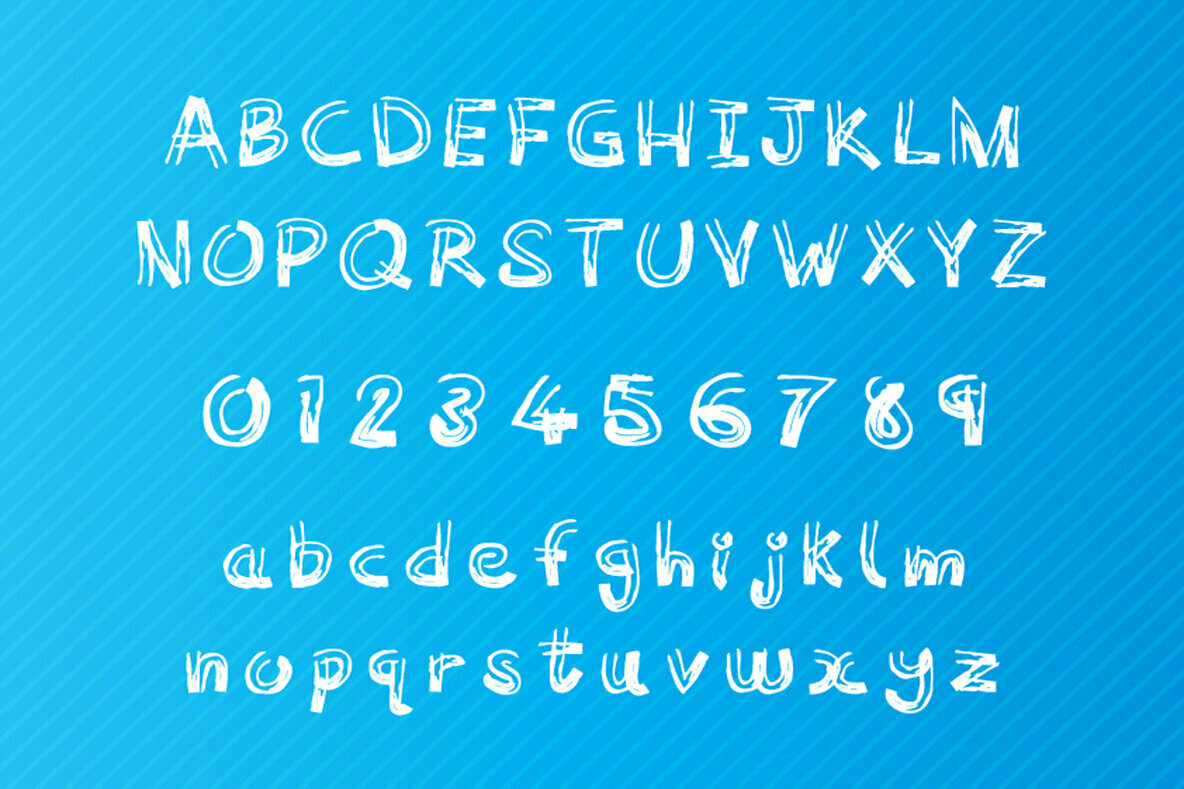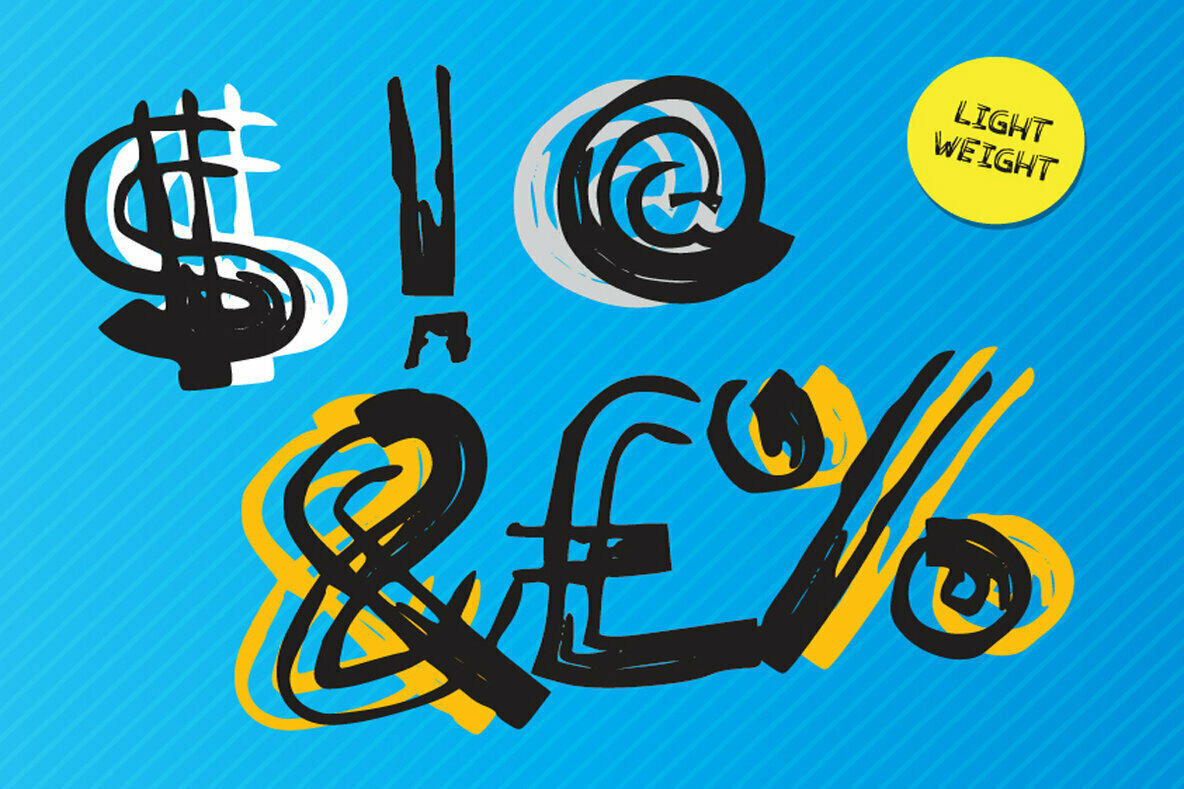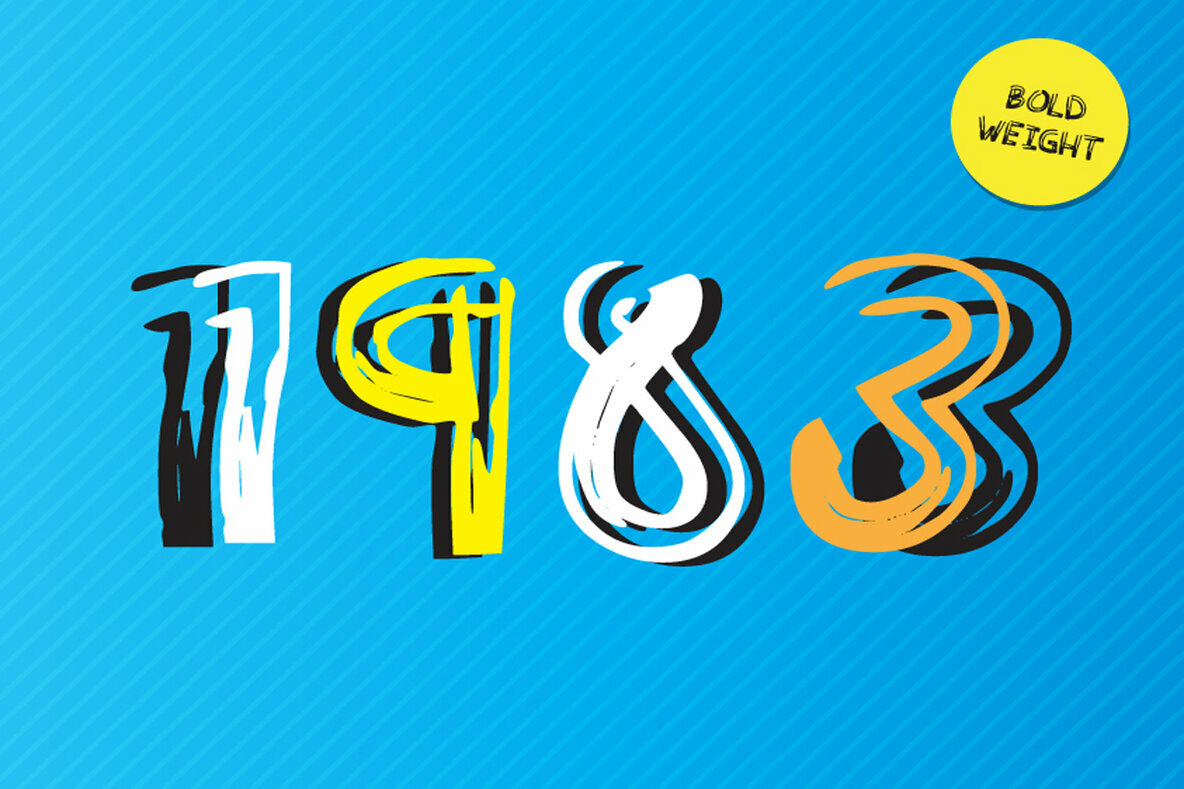
Woody Comic Font
Woody Comic font is a comic sans type font. It’s fun, laid back and casual style features contrasting heavy and light brushstrokes that leave each glyph with an authentic, woody look. Combine the two weights for a striking effect!